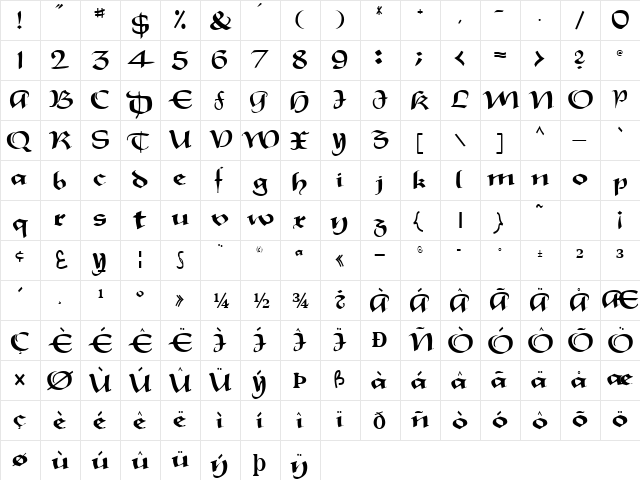
SparrowNew119 Regular
Design Context for SparrowNew119 Typeface
SparrowNew119 is a composed and adaptable typeface that performs quietly and consistently across a wide range of design contexts.